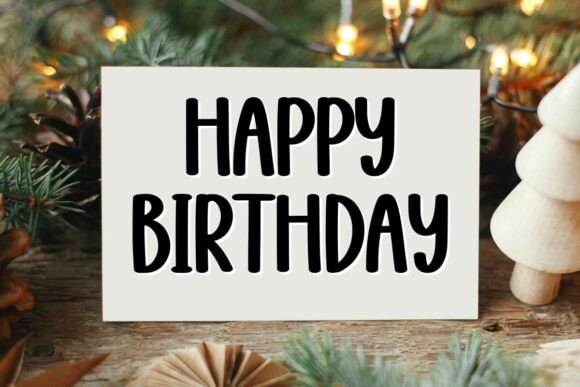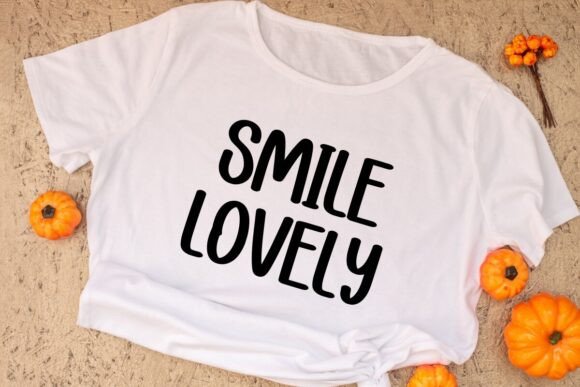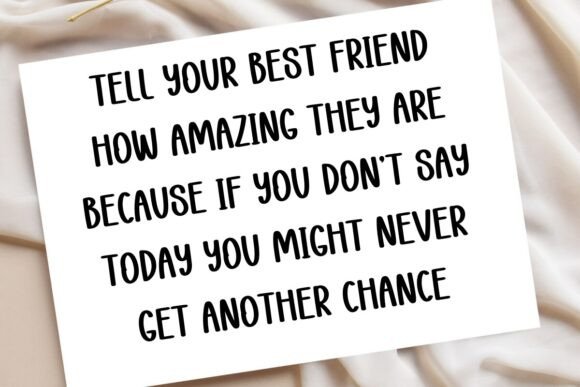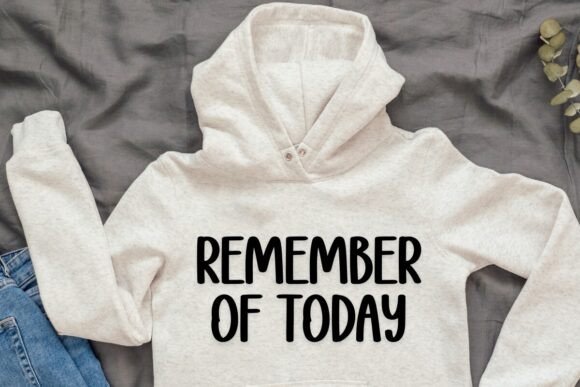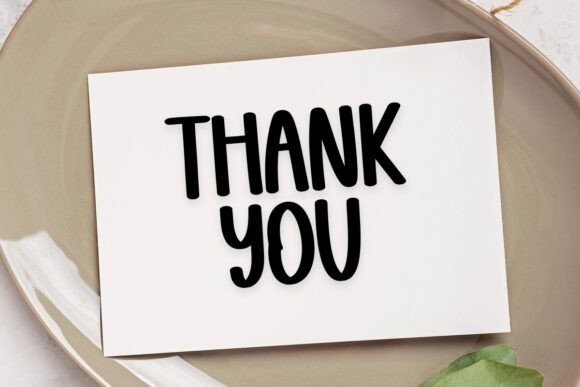
The Perfect Font for a Dash of Whimsy
Have you ever found yourself staring at a blank page, trying to come up with the perfect design to capture the essence of your brand? You know, that elusive spark that makes your audience go “wow”? That’s exactly what happens when you pair your vision with the right font – and we think we’ve found just the one. Enter the Charming Font, a lively sans-serif font that adds a sprinkle of fun to any design.
With its rounded edges and playful letterforms, the Charming Font exudes a sense of whimsy and versatility that’s hard to resist. Whether you’re creating a brand identity, packaging design, or poster art, this font is the perfect addition to bring a touch of cheerfulness and creativity to your work.
As a designer, you know the value of having the right tools at your disposal. The Charming Font is a valuable asset in your toolkit, offering endless possibilities for creative expression and experimentation.
Key Features of Charming Font
- Font Family: Charming Font is a unique, high-quality font family consisting of 6 styles: Thin, Light, Regular, Medium, Bold, and Black.
- Unique Characteristics: Features a beautiful, elegant design with subtle rounded edges, perfect for creating a charming and sophisticated atmosphere in various design projects.
- Language Support: Includes full support for Latin-based languages, including English, Spanish, French, German, Italian, and many others, with extensive character sets and glyphs.
Charming Font Review
Overall, I’m quite pleased with the “Charming Font” – it’s a lovely addition to any project, bringing a touch of elegance and sophistication. ✨ Here are some of its strengths:
- Beautiful, hand-drawn feel: The font has a unique, hand-drawn quality that makes it stand out.
- Good legibility: Despite its decorative nature, the font is still easy to read.
- Wide character set: The font includes a wide range of characters, including punctuation and special symbols.
However, there are a few limitations to keep in mind:
- Limited font sizes: The font doesn’t look its best at very large or very small font sizes.
- Not ideal for body text: While the font is great for headings or titles, it may not be the best choice for large blocks of body text.
- No bold or italic styles: The font doesn’t have any bold or italic variations, which can be a limitation in certain situations.
- ⚠️ May not work well with very dense text: The font’s decorative nature can make it difficult to read when surrounded by a lot of other text.
Overall, I think the “Charming Font” is a great choice for projects where you want to add a touch of elegance and sophistication. Just be mindful of its limitations and use it judiciously.
Getting the Most Out of Charming Font
For best results, use Charming Font in combination with elegant designs and soft colors.
Experiment with different font sizes and styles to create visual interest.
Charming Font is perfect for:
Restaurant and cafe menus
Branding and logo design
Charming Font supports a wide range of characters, including Latin, Cyrillic, and Greek alphabets, as well as punctuation, numbers, and symbols. The font also includes a range of ligatures, swashes, and ornaments to enhance your designs. Please refer to the font’s documentation for a comprehensive list of supported characters and features.